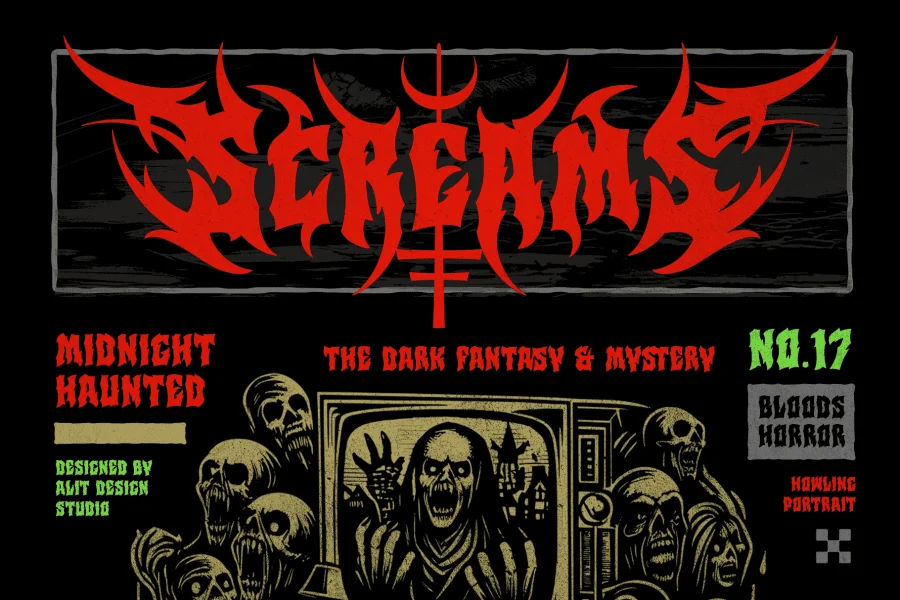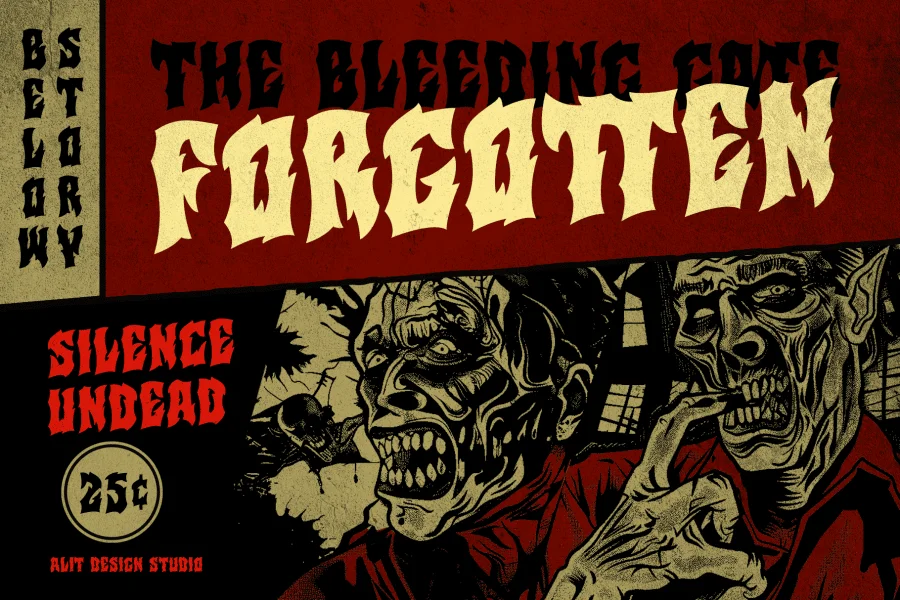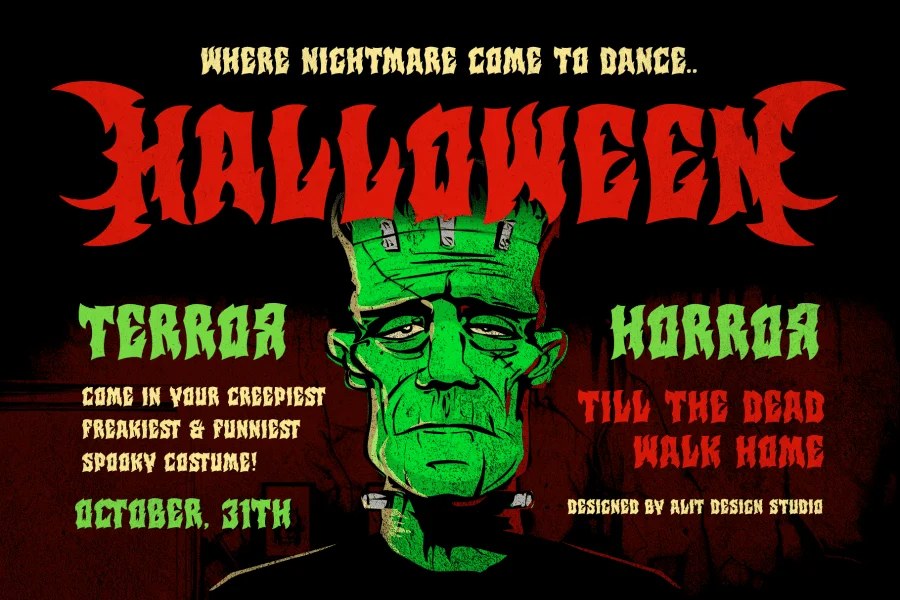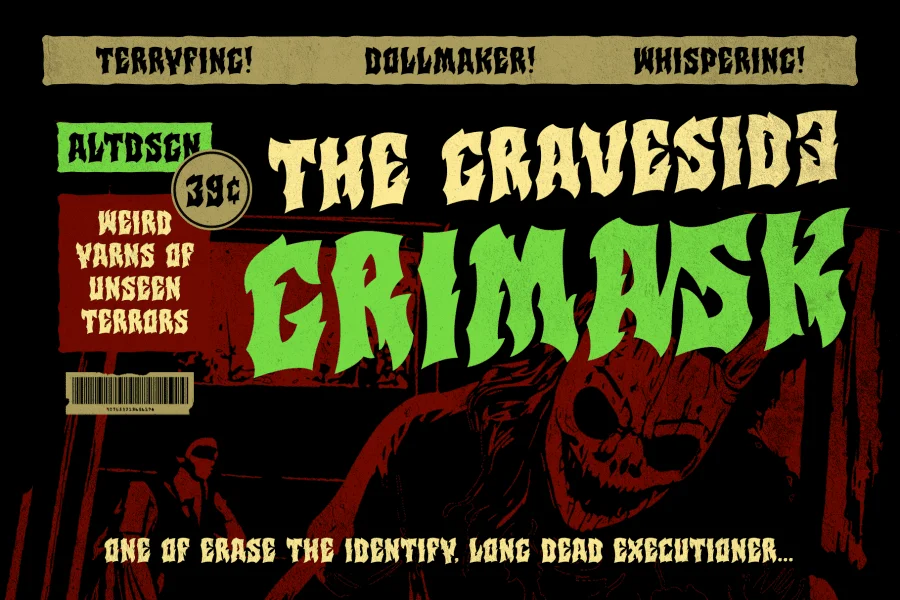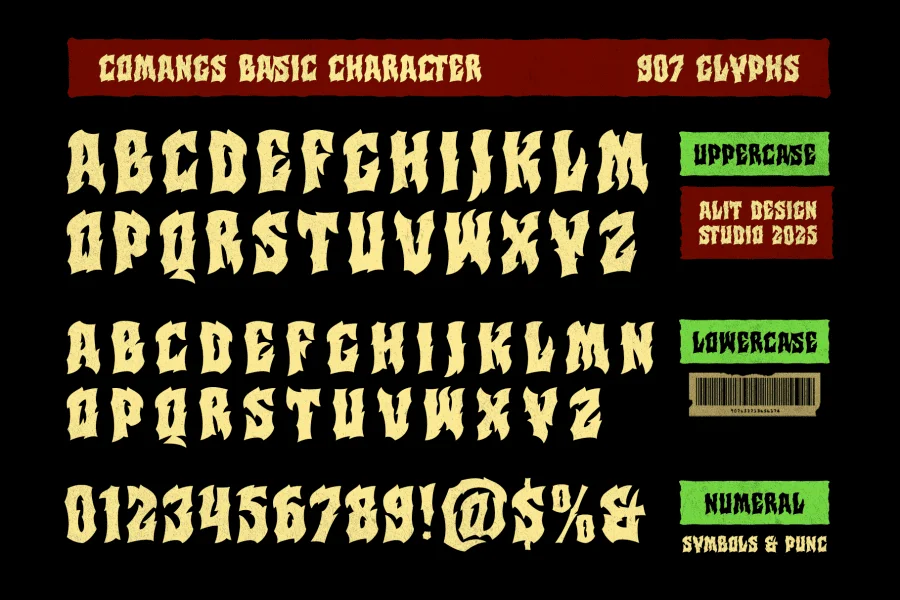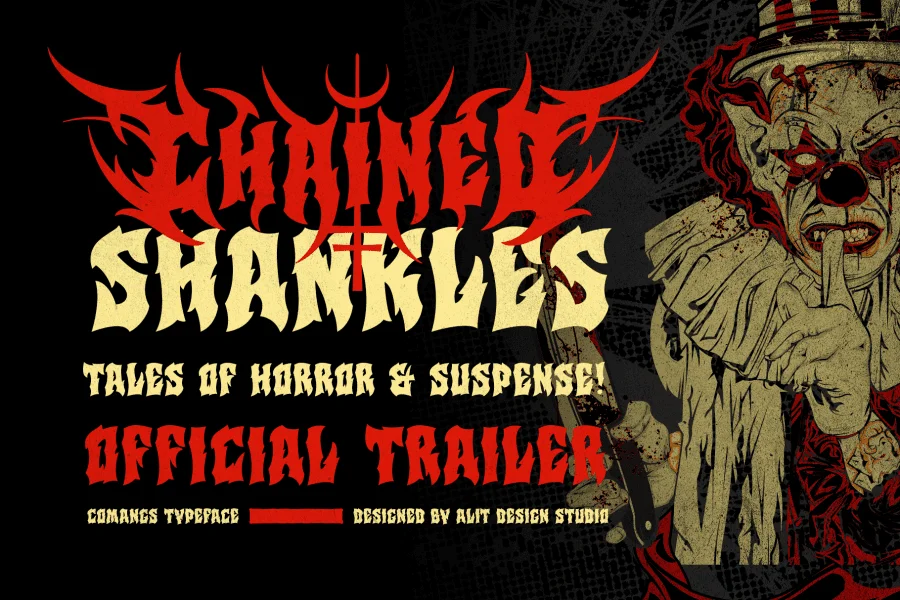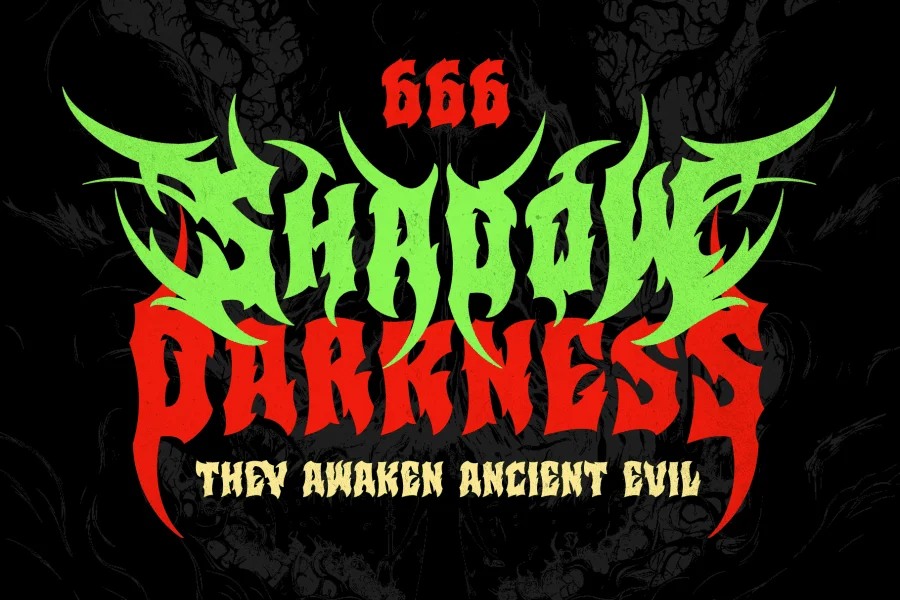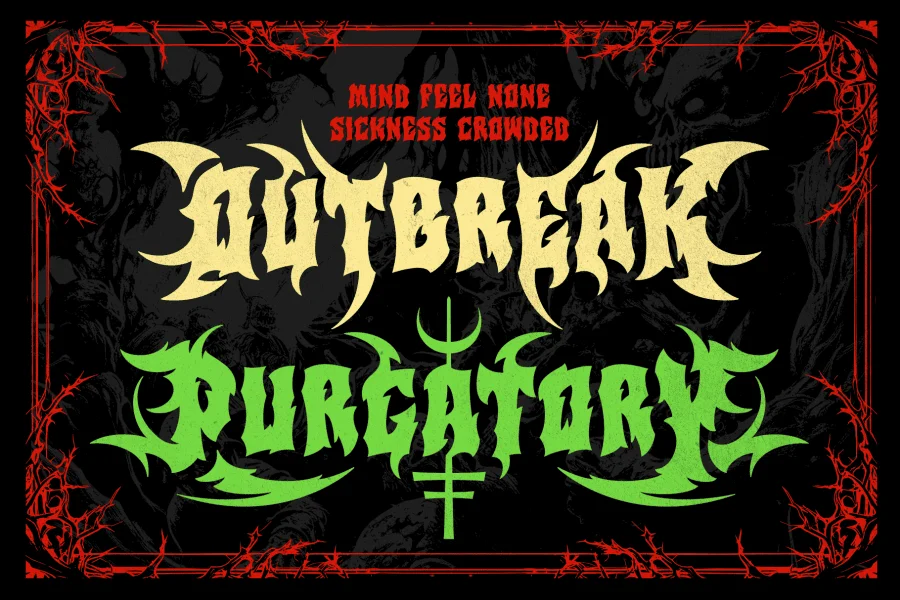
Comang Typeface – Thorned. Twisted. Terrifying.
Proudly handcrafted by Alit Design Studio 2025, the Comang Typeface is a viciously bold, dark letter font built for creators who dare to disturb. Inspired by sadistic cartoon horror, street metal art, and the shadows of urban nightmares, Comang is a display font that claws into the eye and doesn’t let go.
With sharp thorn-like serifs, aggressive curves, and an intense silhouette, each glyph looks like it could cut through the screen. Yet, beneath the violence lies clarity — a design miracle where fierce form meets functional readability.